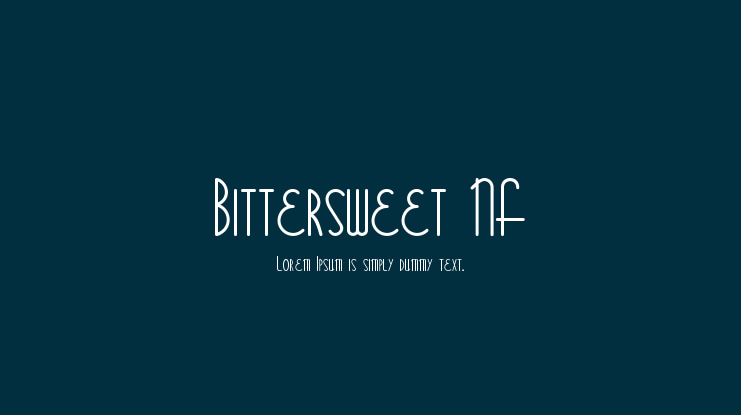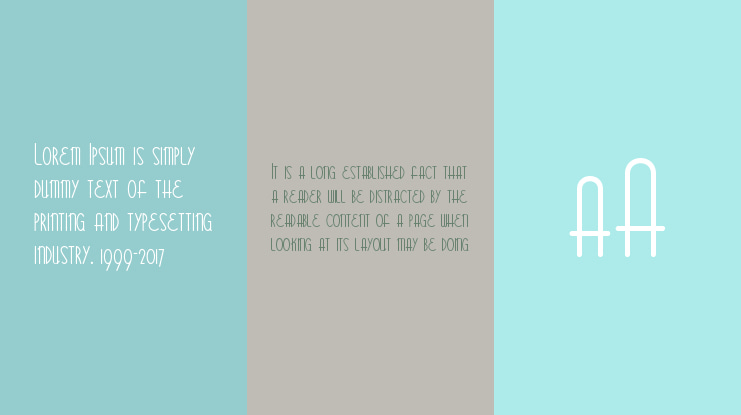
This font is based on handlettering on a poster for the British film Noel Cowardâs âBitter Sweet,â released in the US by United Artists in 1933. The poster is in Reel Art: Great Posters of the Golden Age of the Silver Screen, and is signed by one Hans Flato who, presumably, did both the illustration and the lettering.